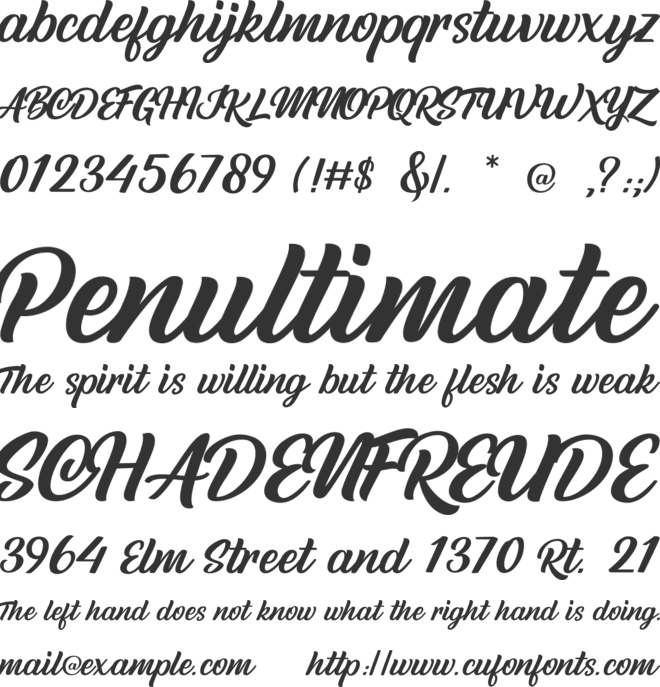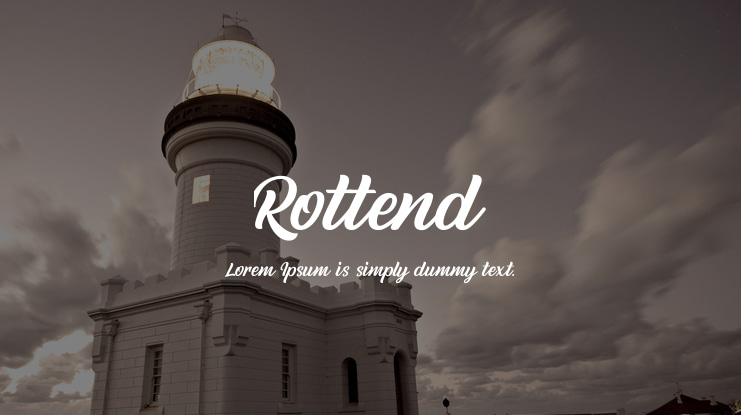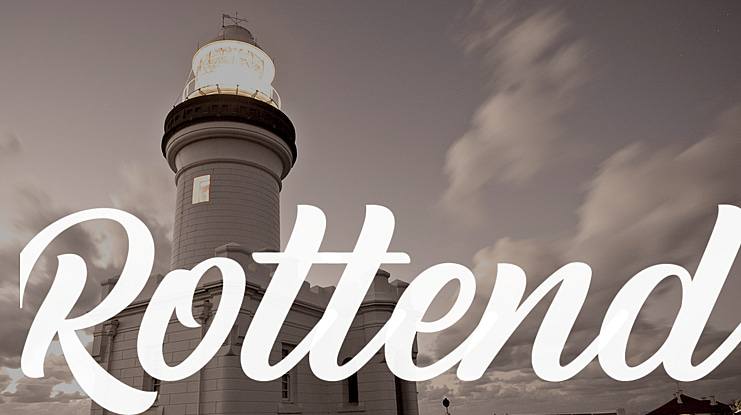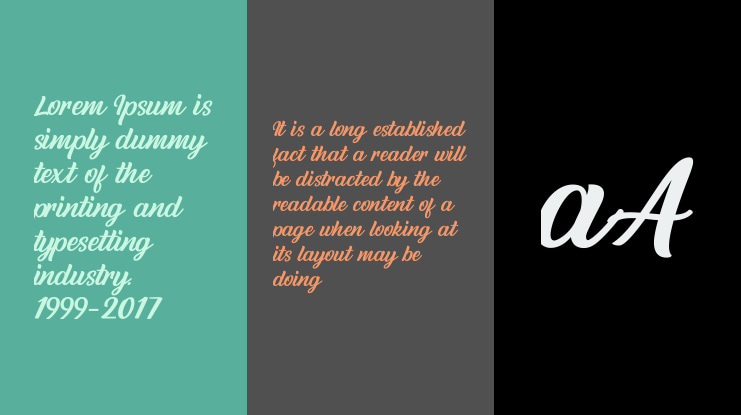
Rottend Font Family
Rottend is a magical handwritten font carefully created with a touch of elegance. It will elevate a wide range of design projects to the highest level, be it branding, headings, wedding designs, invitations, signatures, logos, labels, and much more!